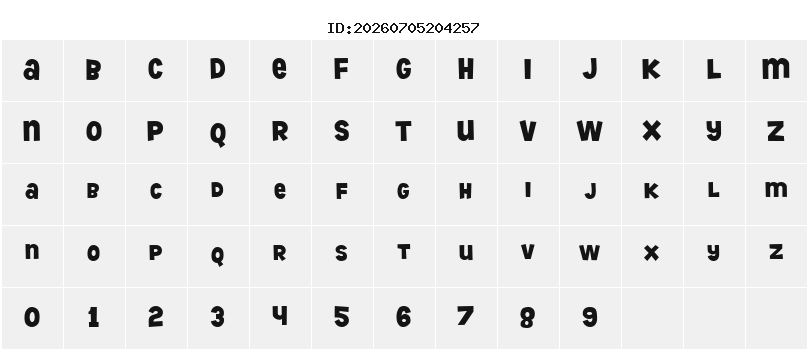
DiscoMonkey Preview
• Font Name: DiscoMonkey
• Full Font Name: DiscoMonkey
About DiscoMonkey.ttf
DiscoMonkey.ttf is a modern, elegant sans-serif font designed for ultimate readability and visual harmony. Perfect for branding, headlines, web design, and print materials.